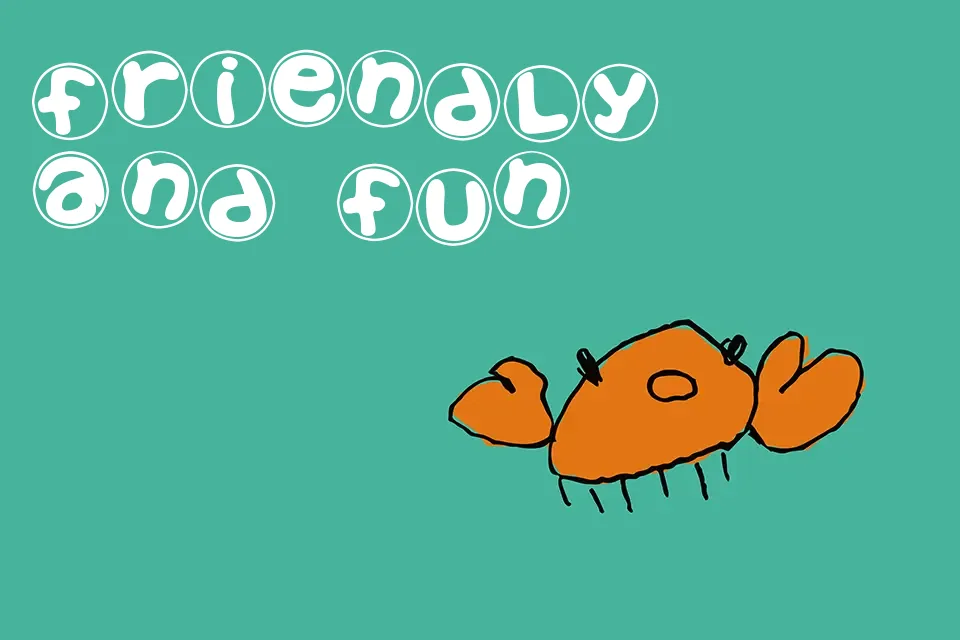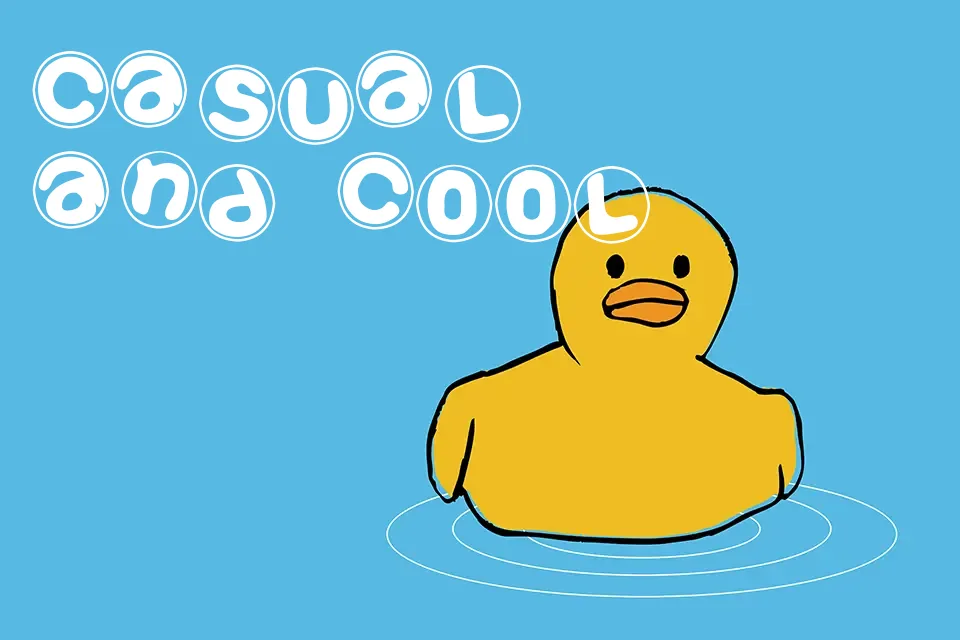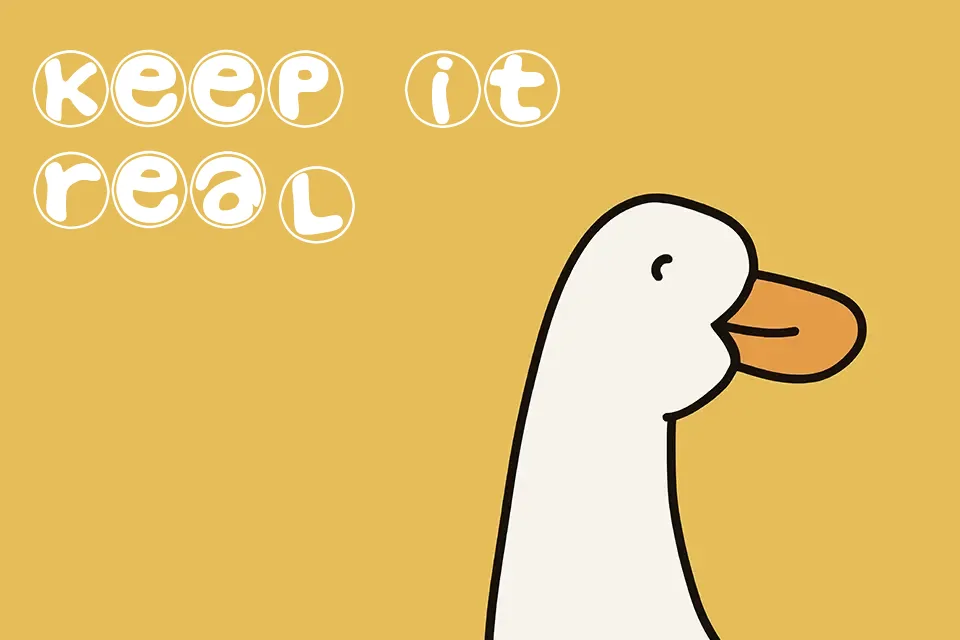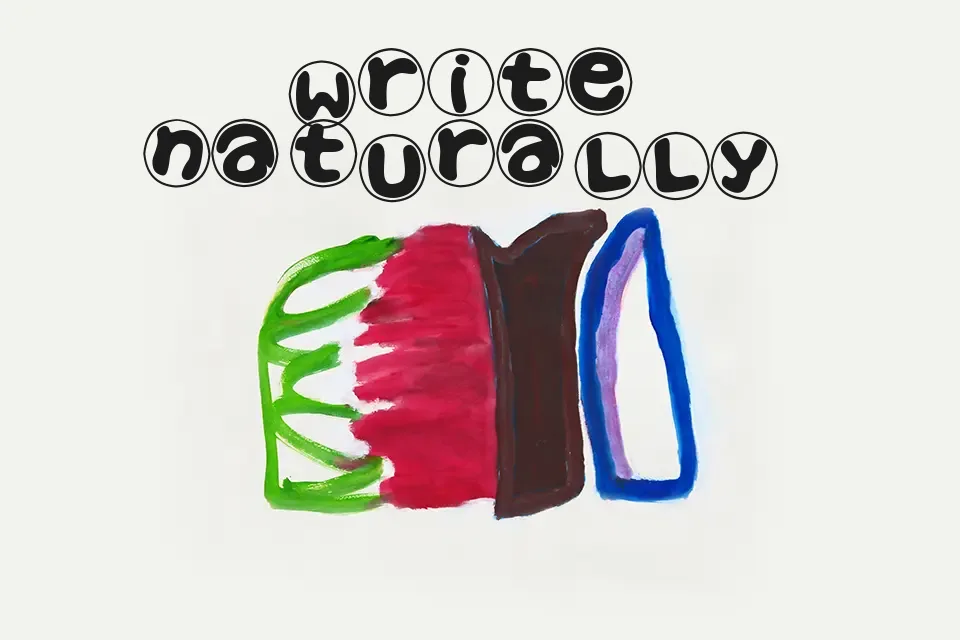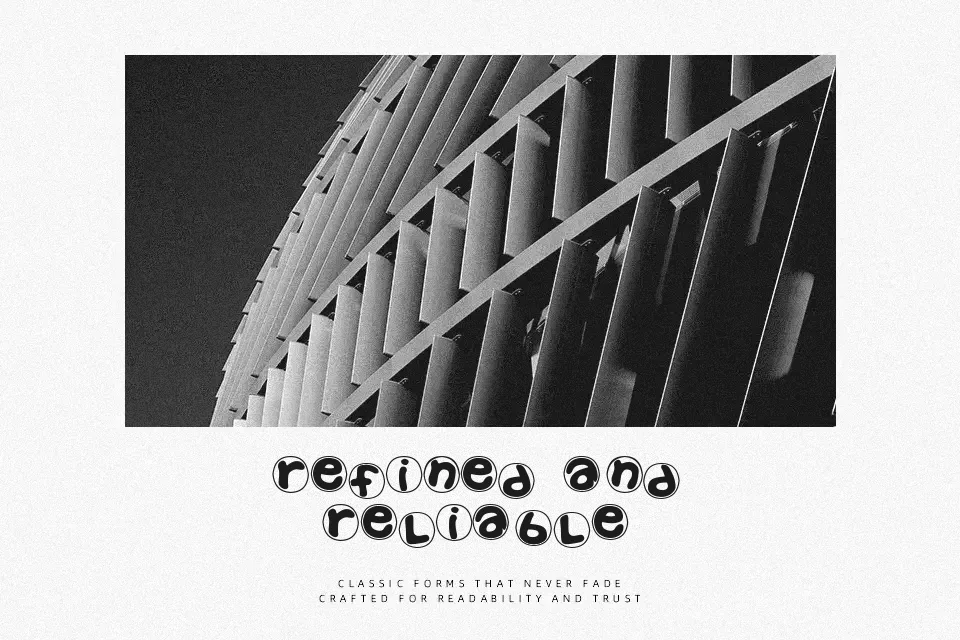
Pop Up Font
A short product label or playful poster benefits immensely from Pop Up, a decorative typeface defined by its heavy, bubbly letterforms. The characters feature completely rounded terminals and thick, bouncy strokes that create a friendly and energetic visual rhythm. Its compact spacing ensures that short headlines remain tight and visually cohesive. This thick structure improves visibility in larger display contexts, making the design highly effective for children’s packaging and cheerful branding. However, the dense, bubbly forms naturally reduce continuous reading comfort in smaller sizes, meaning it is less suitable for long paragraphs. The letterforms remain easy to distinguish in casual headings, but small interface labels may lose clarity quickly.
children’s product packaging
cheerful event posters
casual brand logos
toy box headlines
Perfect for headline, kids, and packaging, with a bubble and decorative style.